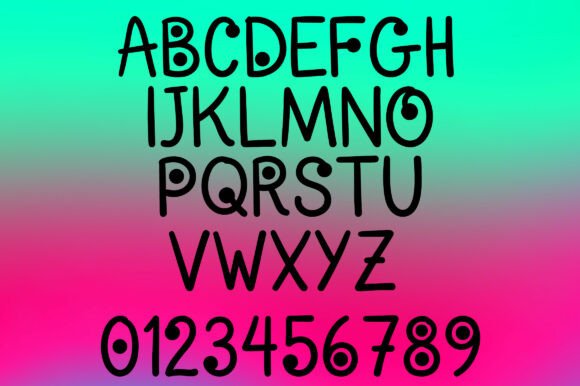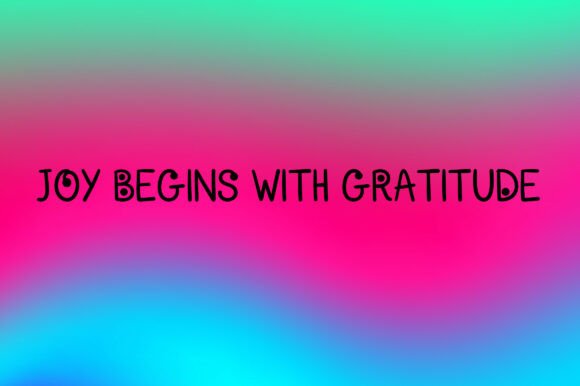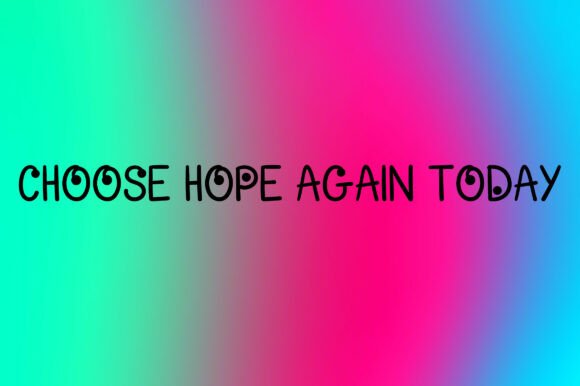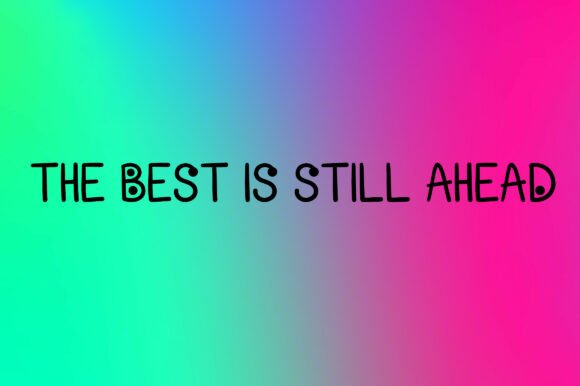
Introducing Adriana Font: The Playful Decorative Display Font
Are you looking for a font that can add a touch of whimsy and charm to your designs? Look no further than Adriana Font, a playful decorative display font that is sure to make your projects stand out. With its handcrafted style and artistic personality, Adriana is perfect for designers and crafters who want to add a bit of fun and quirkiness to their work.
The Characteristics of Adriana Font
Adriana Font is a unique and eye-catching font that features tall, narrow uppercase letterforms with rounded strokes and distinctive circular cutout details. These characteristics give the font a fun, quirky, and artistic look that is sure to grab attention. The font is designed with uppercase letters A-Z and numbers 0-9, making it perfect for a variety of design projects.
What Makes Adriana Font So Versatile?
Adriana Font is a versatile font that can be used for a wide range of design projects, including branding, posters, packaging, invitations, logos, social media graphics, and creative projects. Its cheerful and memorable statement makes it perfect for designers and crafters who want to add a bit of personality to their work.
Adriana Font is a great choice for designers and crafters who want to add a bit of whimsy and charm to their projects. The font is easy to use and can be incorporated into a variety of design software, making it perfect for both digital and print projects. Whether you’re creating a logo, poster, or social media graphic, Adriana Font is sure to make your project stand out.
Key Features of Adriana Font
- Playful decorative display font with a whimsical handcrafted style
- Uppercase letterforms feature tall narrow shapes, rounded strokes, and distinctive circular cutout details
- Designed with uppercase letters A-Z and numbers 0-9
- Perfect for branding, posters, packaging, invitations, logos, social media graphics, and creative projects
How to Use Adriana Font in Your Designs
- Use Adriana Font as a statement piece: Adriana Font is perfect for making a statement in your designs. Use it as a headline or title font to grab attention and add a bit of personality to your project.
- Pair Adriana Font with other fonts: Adriana Font can be paired with other fonts to create a unique and interesting look. Try pairing it with a sans-serif font for a fun and playful look.
- Experiment with different colors: Adriana Font looks great in a variety of colors. Experiment with different colors to find the one that works best for your project.
Adriana Font is a playful decorative display font that is sure to add a touch of whimsy and charm to your designs. With its handcrafted style and artistic personality, Adriana is perfect for designers and crafters who want to add a bit of fun and quirkiness to their work. Whether you’re creating a logo, poster, or social media graphic, Adriana Font is sure to make your project stand out.